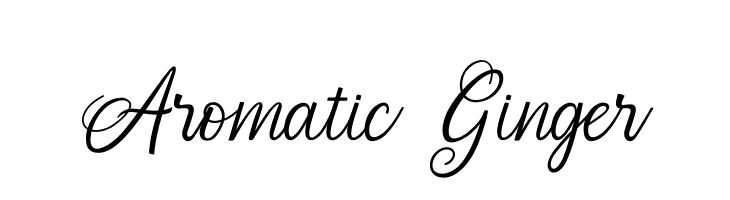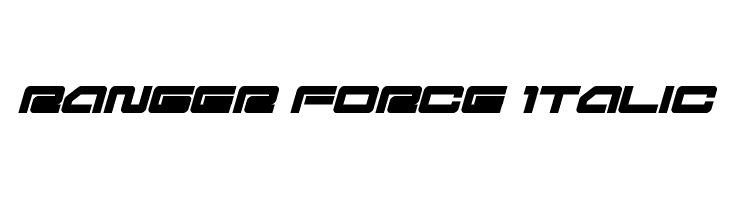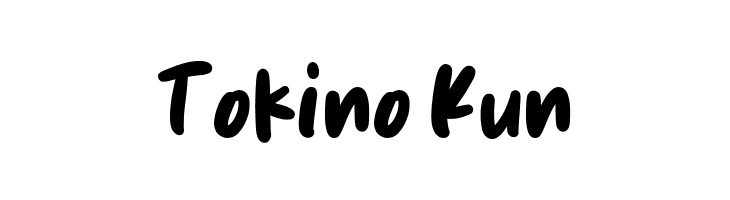
A lively and elegant script font with fluid, cursive strokes.
A modern, minimalist font with thin, geometric lines and a sleek appearance.
A bold, expressive handwritten font with brush-like strokes.
A bold, italic font with a gradient effect created by horizontal lines, offering a modern and dynamic style.
A flowing, cursive script font with elegant, connected letters.
A lively, expressive handwritten font with a dynamic slant.
A playful, handwritten script font with bold uppercase and fluid lowercase letters.
A decorative and ornate font with intricate curls and flourishes.